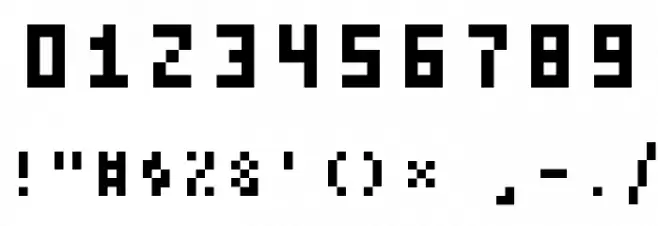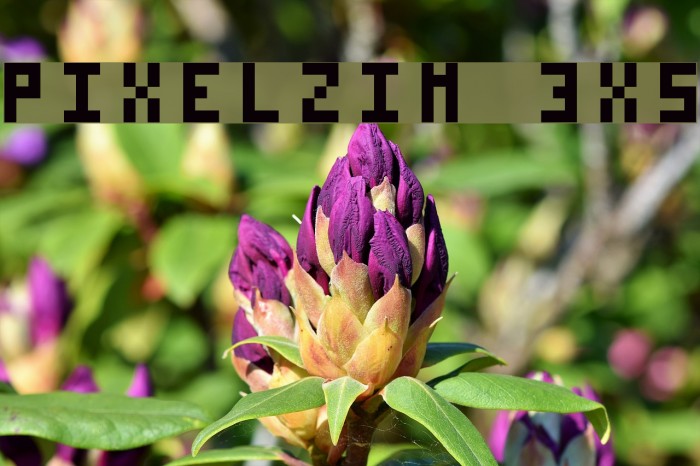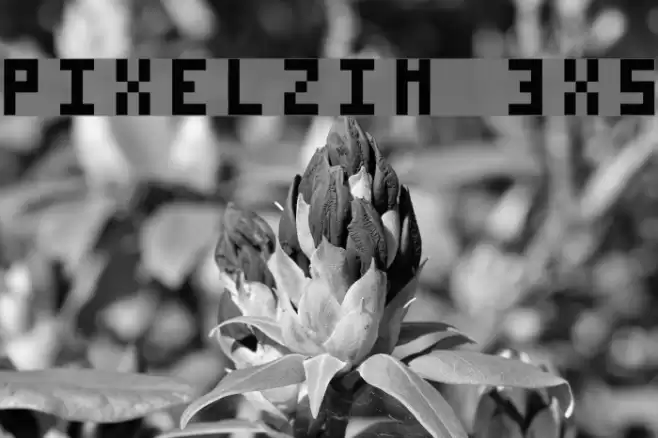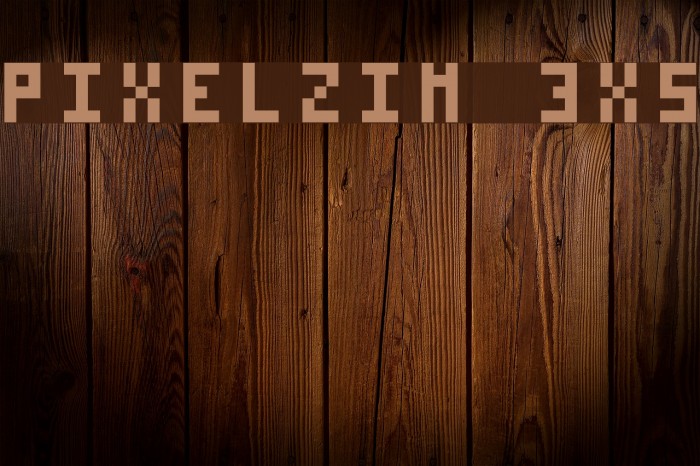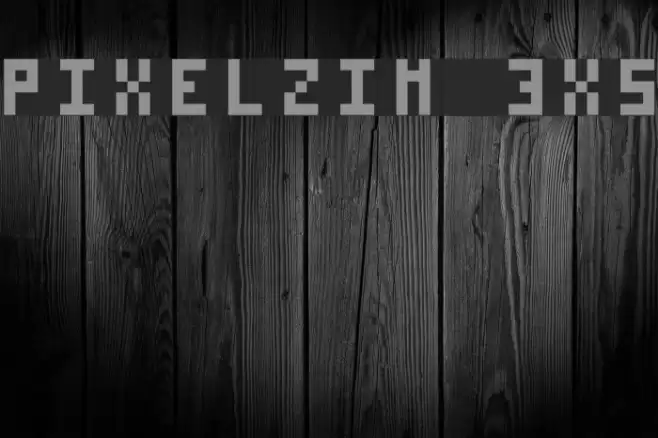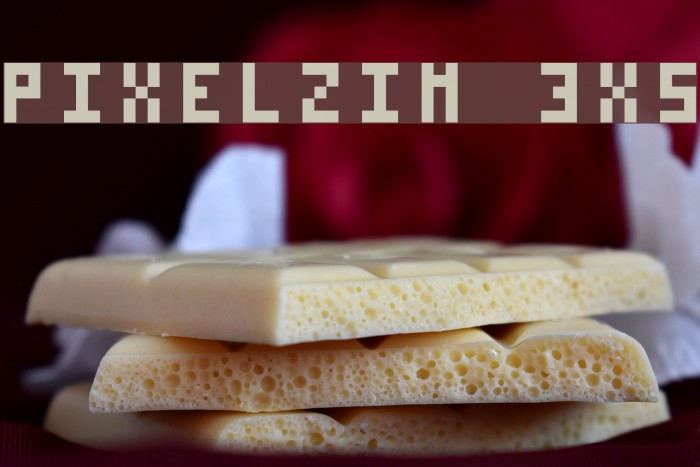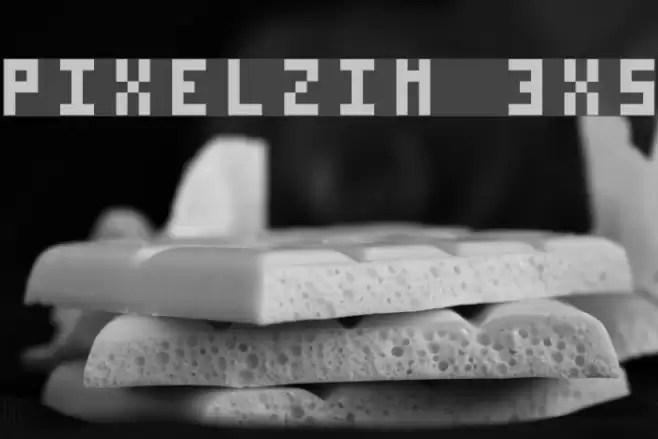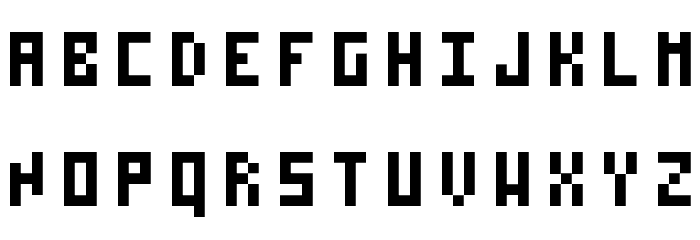
Pixelzim 3x5 Font
Pixelzim 3x5 Description
This font features a pixelated, blocky design reminiscent of early digital displays and retro video games. Each character is constructed with a grid-like precision, giving it a distinctly digital and geometric appearance. The uppercase and lowercase letters maintain a uniform height, contributing to a cohesive and structured look. The numerals and special characters follow the same pixelated style, ensuring consistency across all glyphs. This font's simplicity and clarity make it highly legible, even at smaller sizes, while its nostalgic aesthetic evokes a sense of vintage computing and arcade games.
A pixelated, blocky font inspired by retro digital displays from Pixel fonts.
- Proposed Projects: Ideal for retro-themed designs, video game graphics, digital art projects, and any creative work that seeks to evoke a sense of nostalgia for early computing.
- Overall Style: Vintage
- Use Case: Logos, Headlines, Digital Art